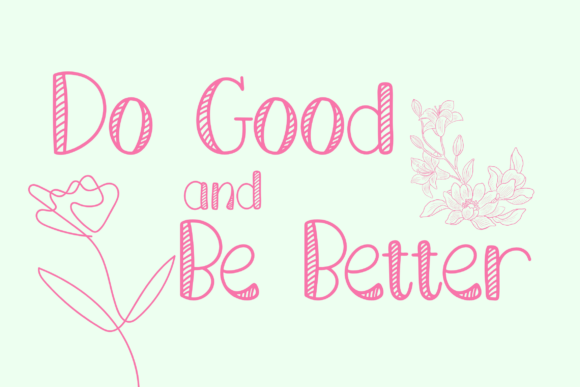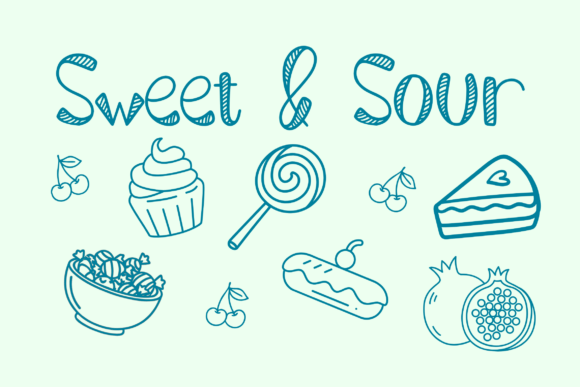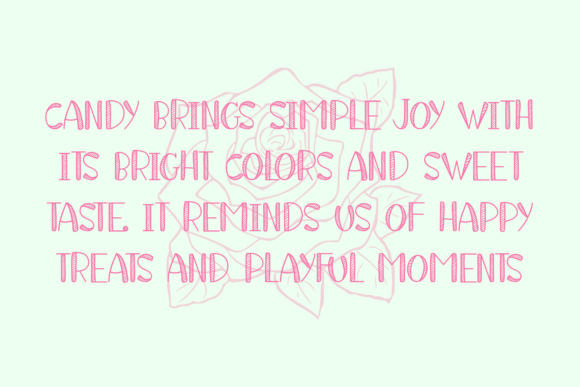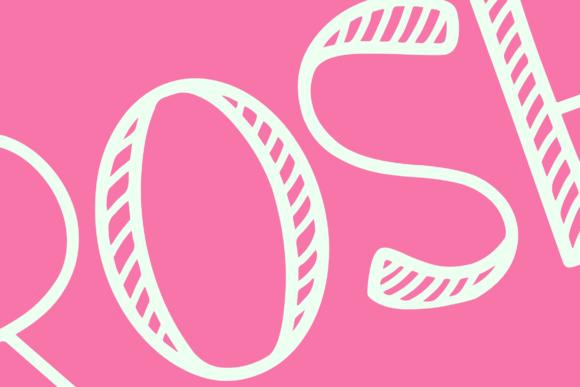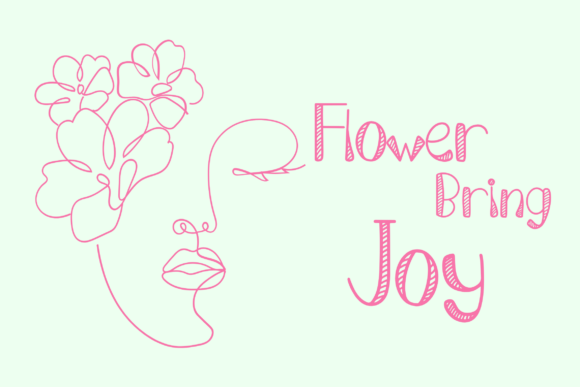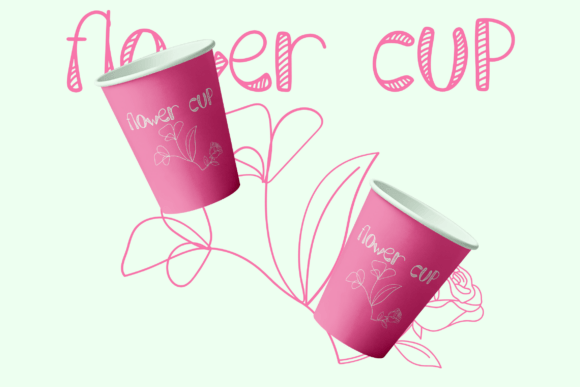
Meet Hatch Berry, the Cute Handwritten Font
Are you looking for a font that can add a touch of sweetness and charm to your designs? Look no further than Hatch Berry, a playful handwritten font that’s perfect for creating warm and lighthearted typography. In this article, we’ll take a closer look at Hatch Berry and explore its features, uses, and benefits for designers and crafters.
The Characteristics of Hatch Berry
Hatch Berry is a handwritten font that’s designed to feel soft, rounded, and friendly. Its strokes are gentle and smooth, giving every word a cheerful and approachable personality. The font’s cute style makes it perfect for designs that need a playful and youthful vibe. Whether you’re creating branding for kids, designing stickers, or crafting greeting cards, Hatch Berry is the perfect choice.
Uses for Hatch Berry
So, what can you use Hatch Berry for? The possibilities are endless! Here are some ideas to get you started:
- Kids’ branding: Hatch Berry is perfect for creating fun and playful branding for kids’ products, such as toys, clothing, and accessories.
- Sticker designs: Add a touch of sweetness to your sticker designs with Hatch Berry’s cheerful and playful style.
- Greeting cards: Create adorable and heartfelt greeting cards with Hatch Berry’s friendly and approachable personality.
- Social media posts: Add a playful touch to your social media posts with Hatch Berry’s fun and youthful style.
- Product packaging: Make your product packaging stand out with Hatch Berry’s cute and charming typography.
- Planners: Add a touch of whimsy to your planners and journals with Hatch Berry’s playful and cheerful style.
- Playful merchandise: Create fun and playful merchandise, such as t-shirts, mugs, and tote bags, with Hatch Berry’s adorable typography.
Benefits of Using Hatch Berry
So, why should you choose Hatch Berry for your designs? Here are just a few benefits of using this adorable font:
- Instantly inviting: Hatch Berry’s friendly and approachable personality makes your typography instantly inviting and engaging.
- Adorable and joyful: Hatch Berry’s cute style adds a touch of joy and playfulness to your designs, making them perfect for kids and adults alike.
- Perfect for branding: Hatch Berry’s unique and playful style makes it perfect for creating memorable and recognizable branding.
- Easy to read: Despite its playful style, Hatch Berry is easy to read and understand, making it perfect for body text and headings.
Tips for Using Hatch Berry
Here are a few tips for getting the most out of Hatch Berry:
- Experiment with colors: Hatch Berry looks great in a variety of colors, so don’t be afraid to experiment and find the perfect hue for your design.
- Mix and match: Try pairing Hatch Berry with other fonts to create a unique and interesting typography combination.
- Use it sparingly: While Hatch Berry is perfect for headlines and titles, it can be overwhelming if used for body text. Use it sparingly to create visual interest and emphasis.
In conclusion, Hatch Berry is a playful handwritten font that’s perfect for adding a touch of sweetness and charm to your designs. Its soft, rounded strokes and friendly personality make it perfect for kids’ branding, sticker designs, greeting cards, and more. With its adorable and joyful style, Hatch Berry is sure to bring a smile to your audience’s face. So why not give it a try and see how it can elevate your designs?